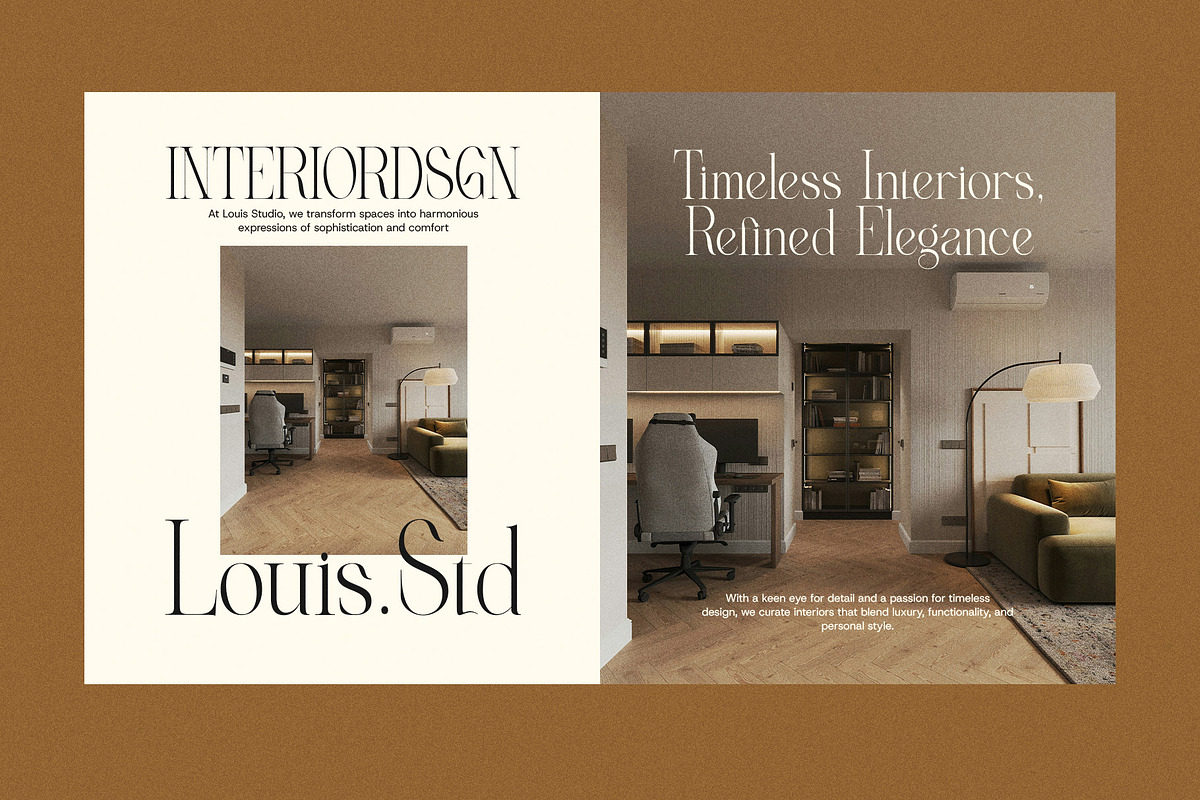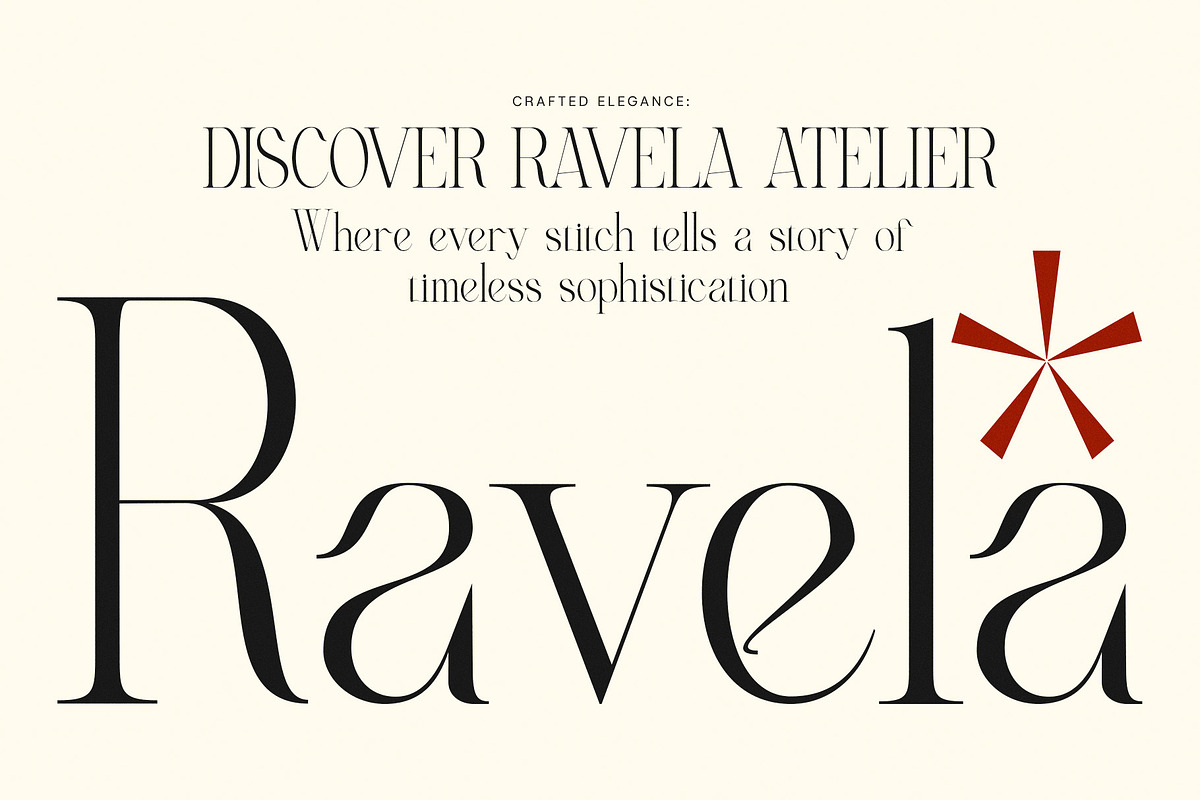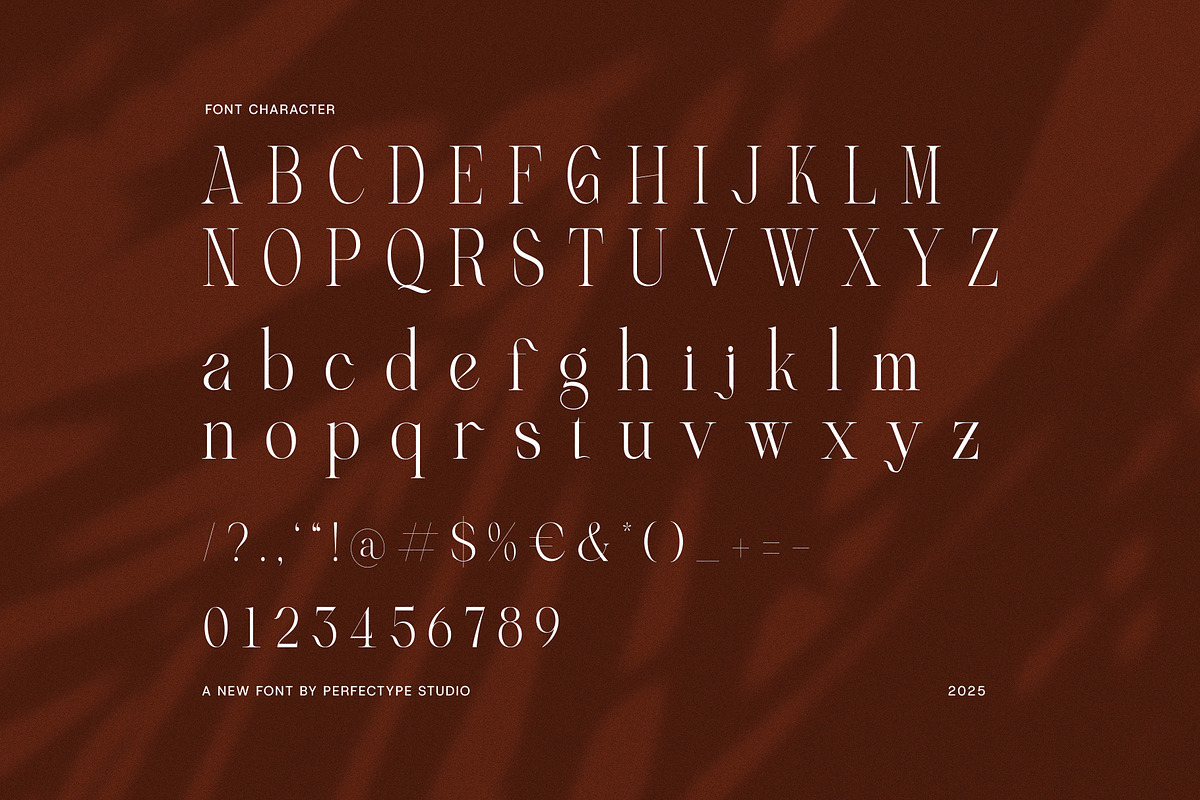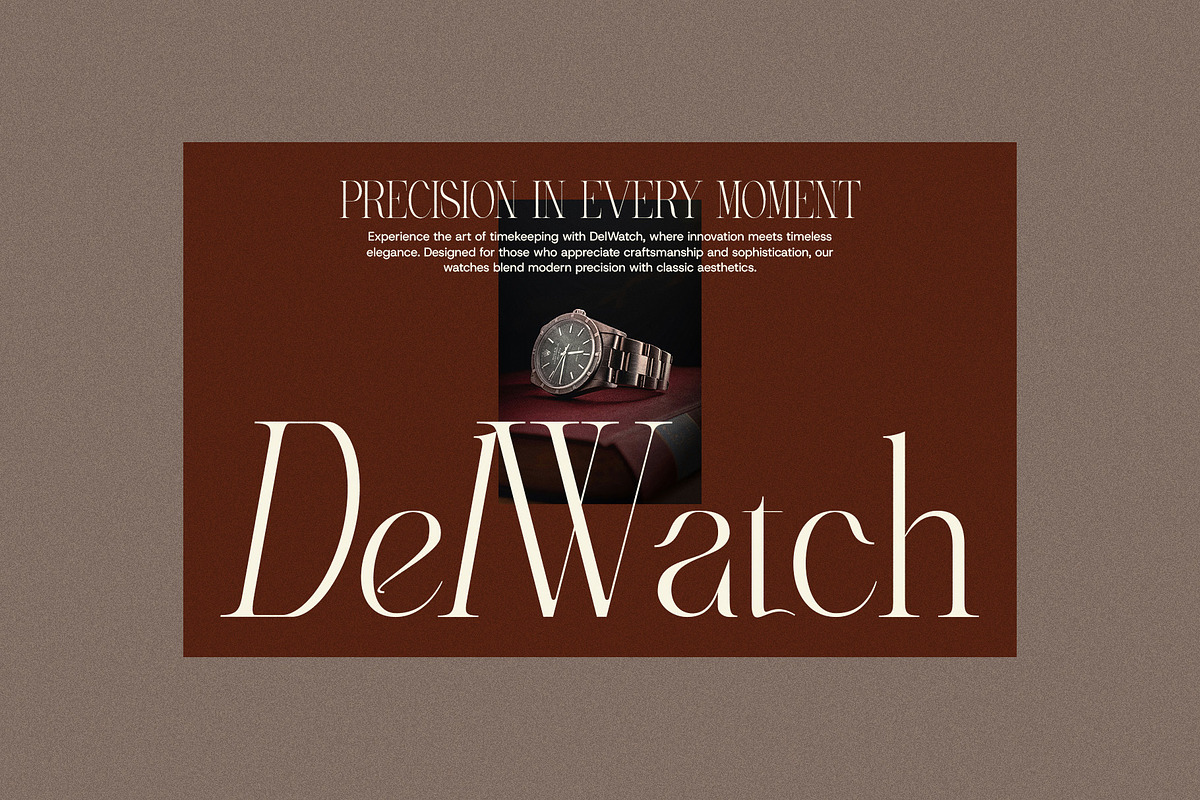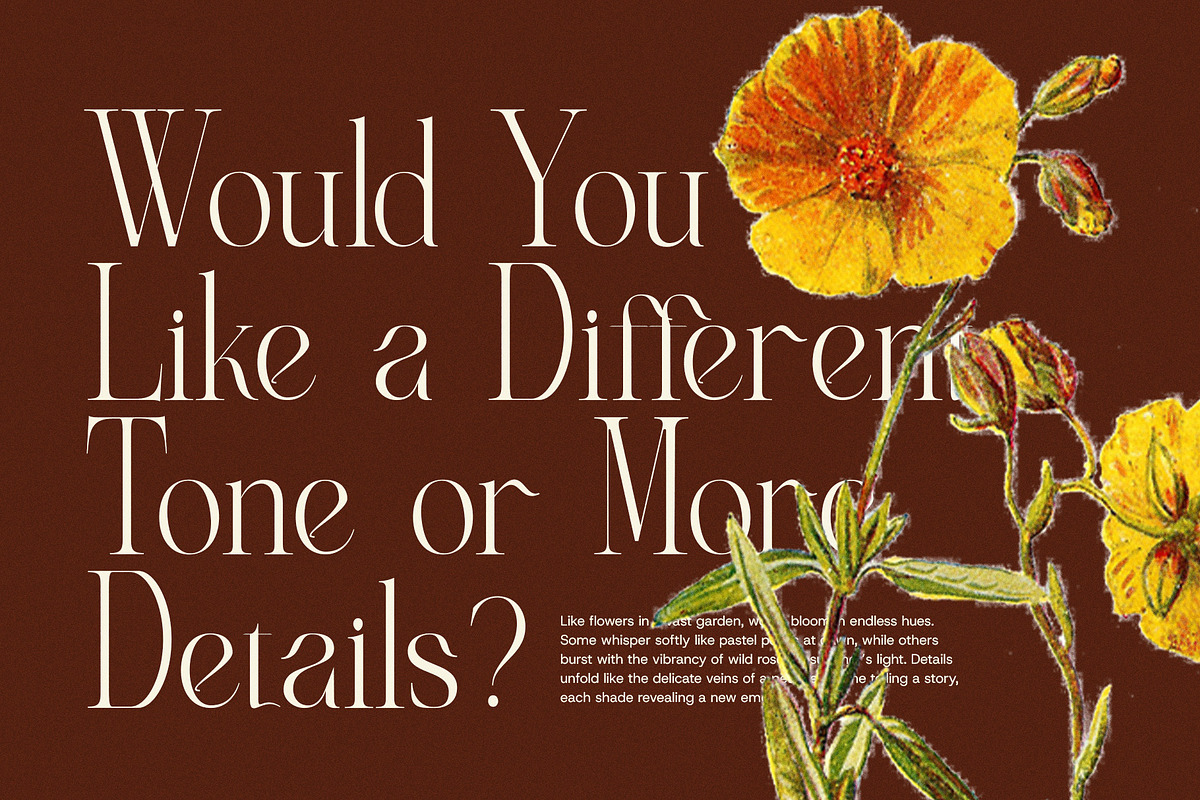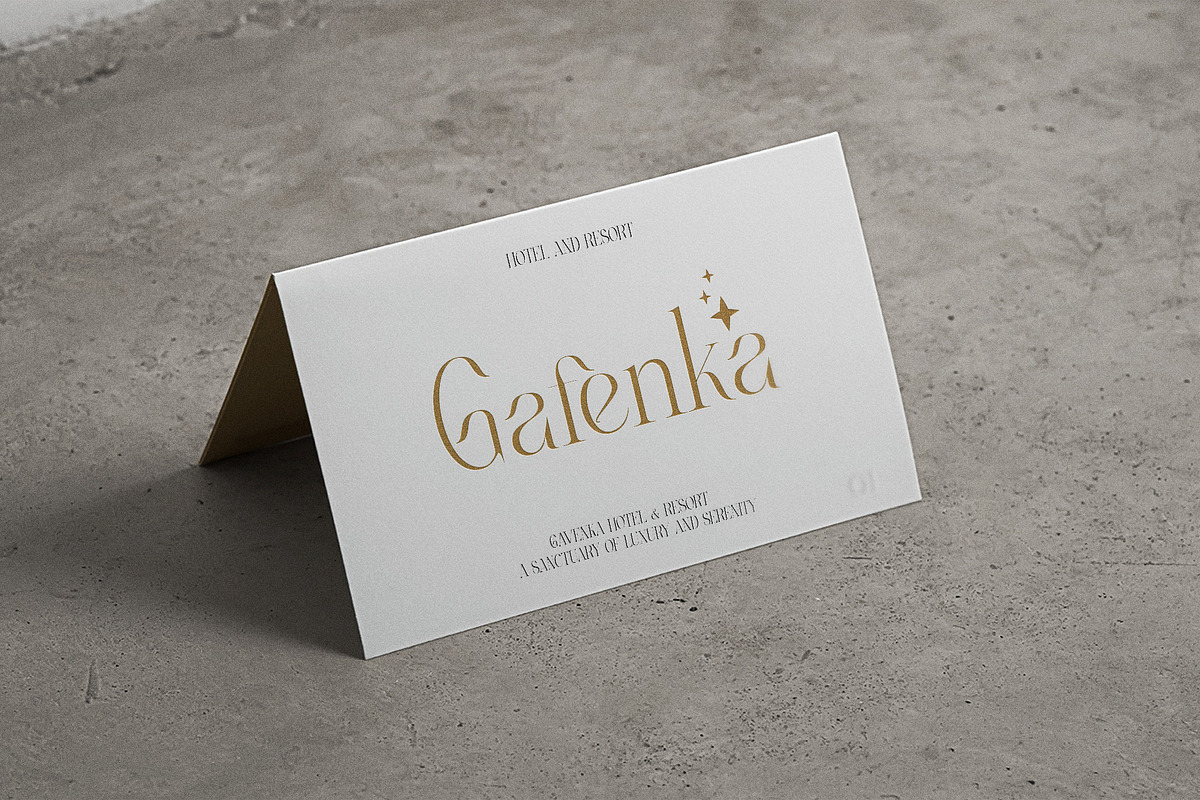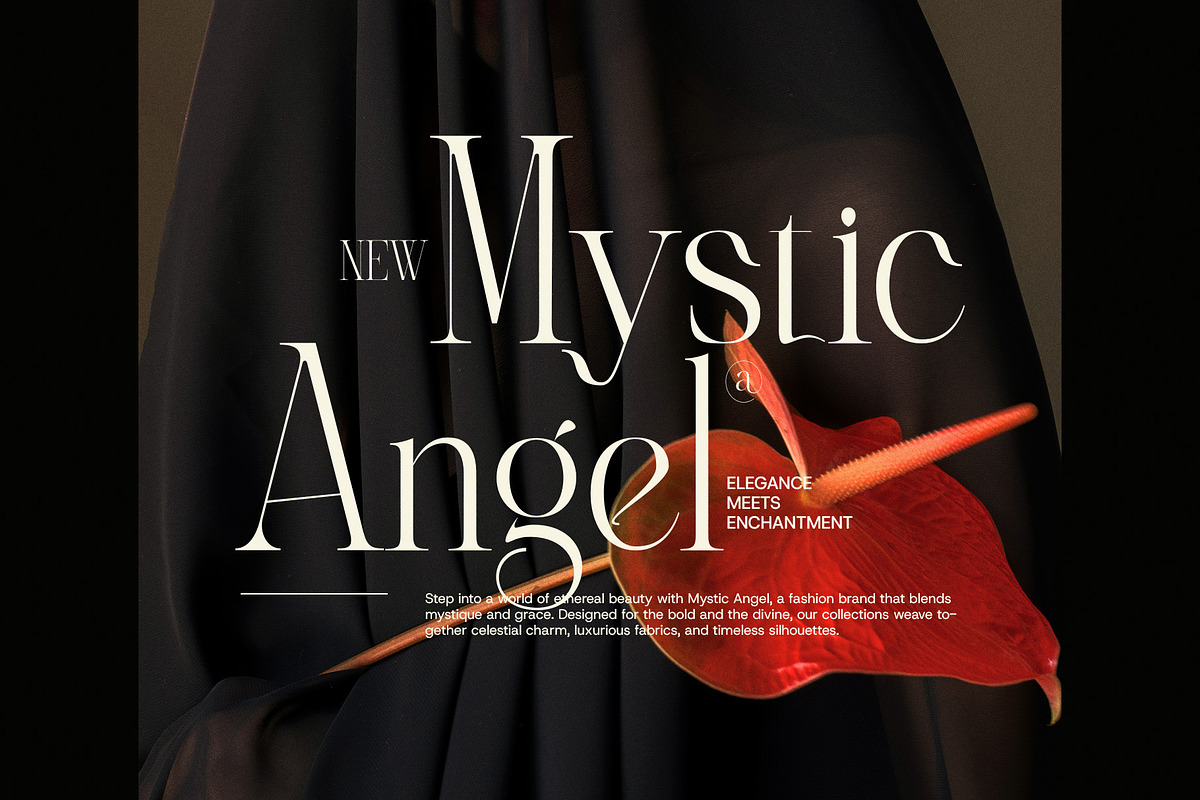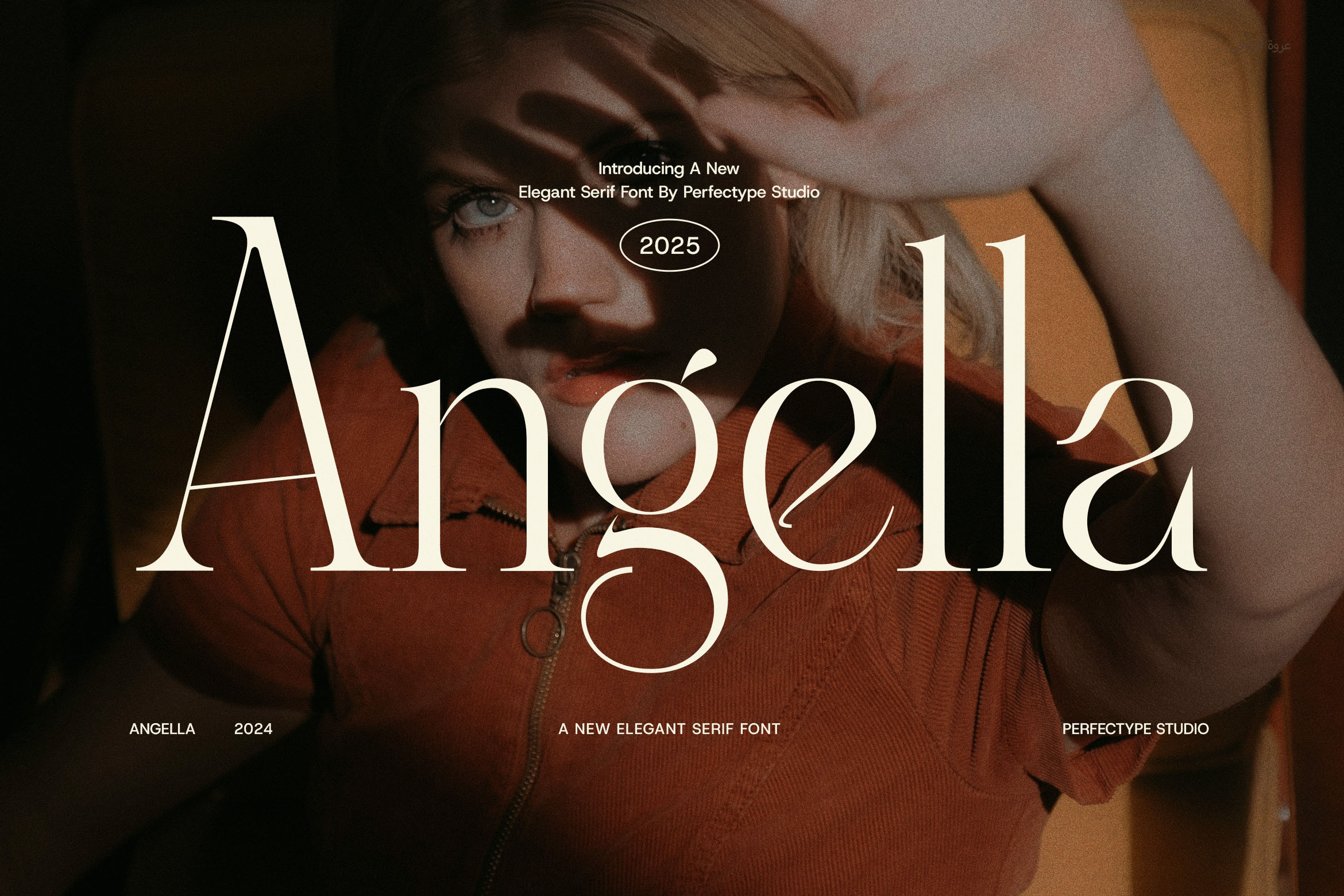
Angella Elegant Serif Font
Angella Elegant Serif Font – Graceful Sophistication for Timeless Design
Angella Elegant Serif Font is a refined and modern serif typeface designed to bring a high-end, stylish touch to your branding and design work. With perfectly balanced letterforms and smooth curves, Angella offers a graceful look that’s ideal for professional and luxury projects.
Featuring a series of elegant ligatures, this font adds charm and character to each composition. Whether you're creating standout logos, sophisticated magazine layouts, or stunning packaging, Angella adapts beautifully across digital and print formats. It delivers a sense of class without being overly ornate—making it perfect for brands that seek to communicate elegance, trust, and style.
From boutique branding and fashion lookbooks to websites and editorial spreads, Angella brings a premium visual experience to your content. With clean lines and proportional spacing, every character is crafted to ensure readability and aesthetic balance at every scale.
This font isn’t just beautiful—it’s functional, scalable, and ready for any design challenge you have.
Why Choose Angella Elegant Serif?
Elegant, modern serif with graceful styling
Beautiful ligatures that add visual harmony
Perfect for branding, editorial, logos, packaging, and web
Versatile for business and creative industries
Clean, readable, and fully scalable